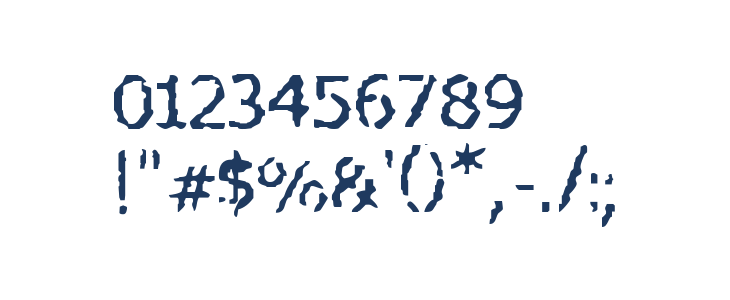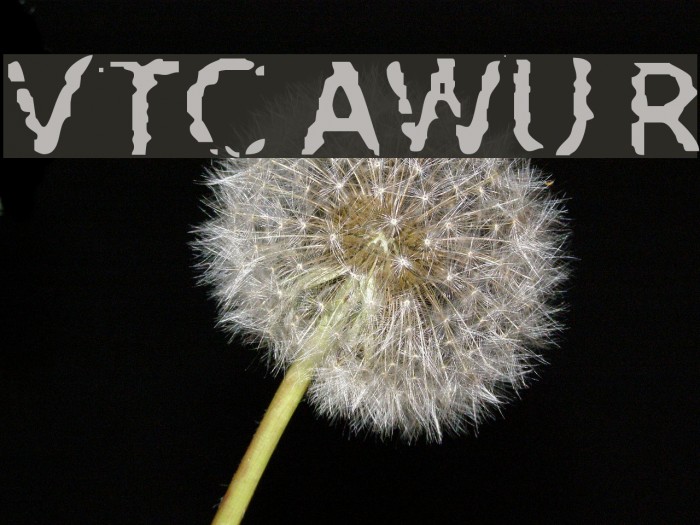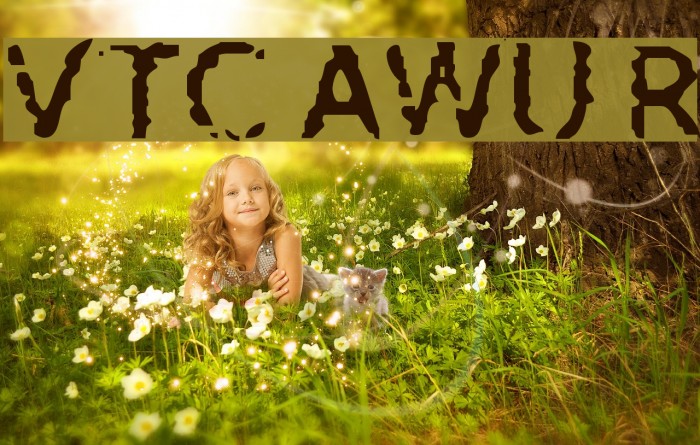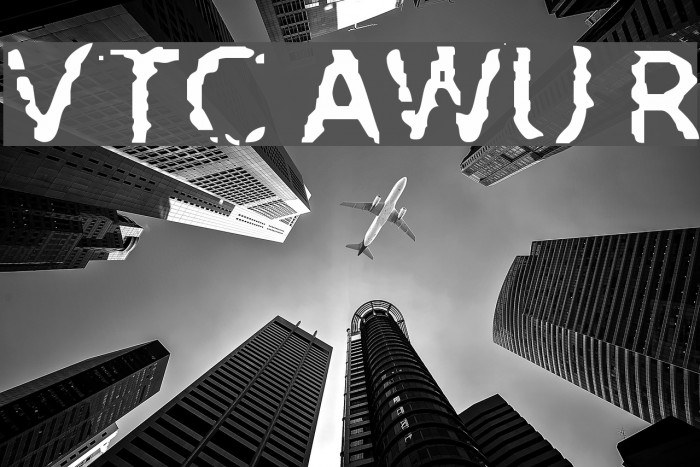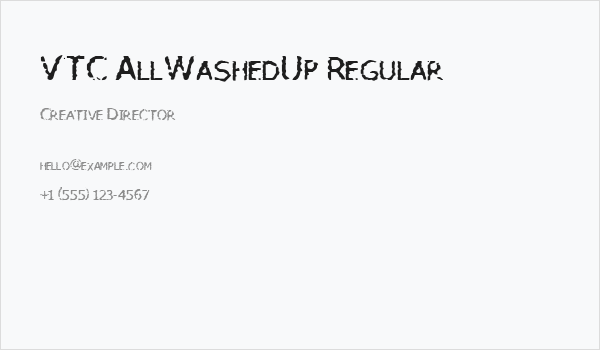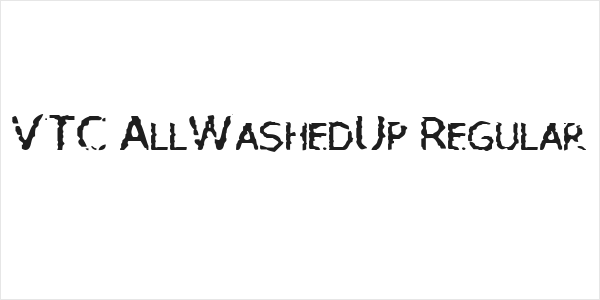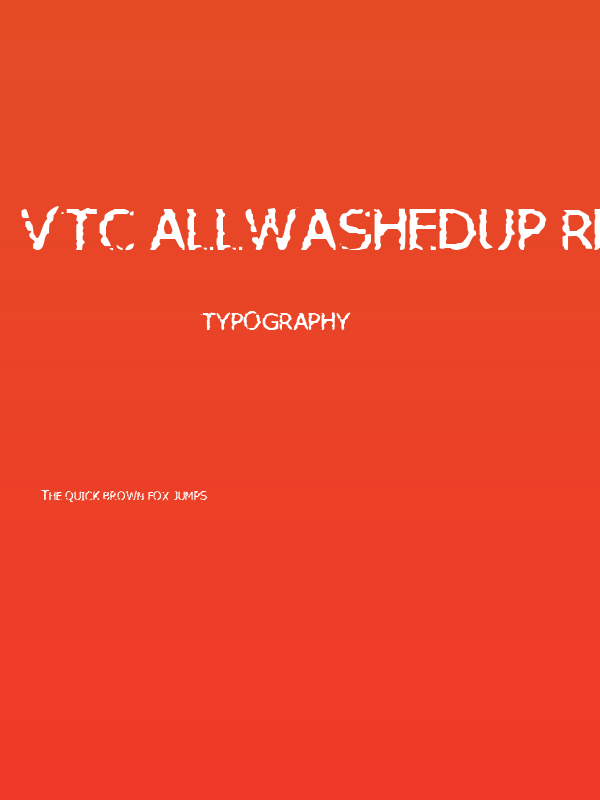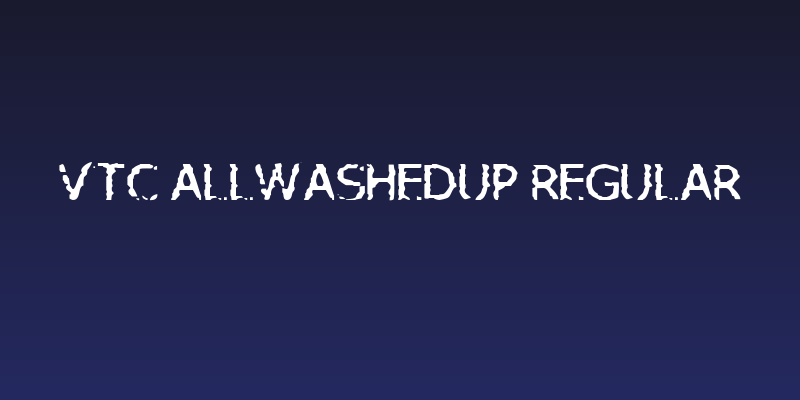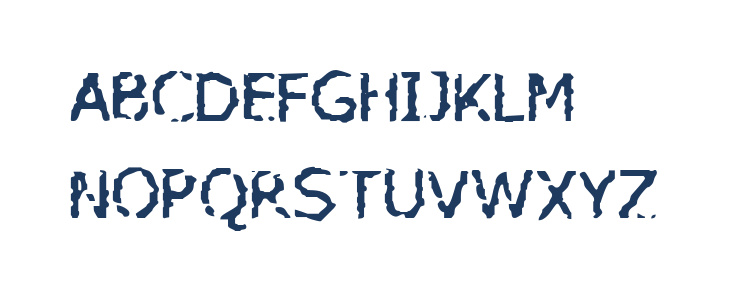
VTC AllWashedUp Regular Font
VTC AllWashedUp Regular Description
This font features a distressed and weathered appearance, reminiscent of letters that have been eroded by time and elements. The characters are bold and display a rugged texture, with irregular edges and a hand-crafted feel. The uppercase and lowercase letters maintain a consistent style, while the numerals and special characters complement the overall aesthetic. The font's unique design makes it suitable for projects that require a vintage or grunge look, adding character and depth to any text.
| Proposed Projects | Ideal for vintage posters, album covers, branding for rustic or outdoor-themed products, and any design needing a grunge or aged effect. |